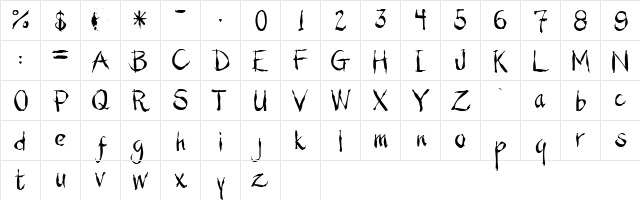
Jimmy Benedict Regular
Design Context for Jimmy Benedict Typeface
Jimmy Benedict is a composed and adaptable typeface that performs quietly and consistently across a wide range of design contexts.